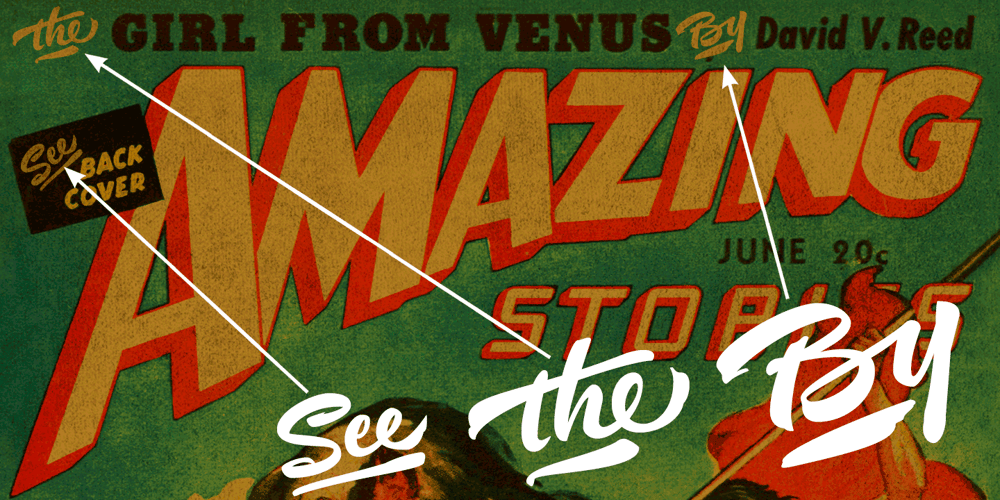
Nutcake CatchWords Font Family was designed by Carlos Fabián Camargo Guerrero and published by Andinistas. Nutcake CatchWords contains 1 styles and family package options. INSPIRED BY THE LOVERS OF LETTERS AND ANCIENT ANIMATED DRAWINGS: We present one of our most desired typographical tools of 2019: NUTCAKE CATCH-WORDS! Designed and produced by #carlosfabiancg and #a_freitez at different times and places in Venezuela and Colombia. Each word design was like “travel to the old school of hand lettering of 1930” due to the number of options and alternatives we discarded to solidify meticulous researches and Bezier drawings, based on analysis and synthesis of empty and full calligraphy, first done with a round brush and then perfected with pencil and paper. For this reason, each NUTCAKE CATCH-WORDS design contains a high dose of cursive expressiveness, apparently handwritten, and that is why our customers can take advantage of more than 160 words compiled in a single OTF file. NOTE: if you need any new word with the NUTCAKE CATCH-WORDS style, please write us and we will gladly design it to include it in your file. Below the list of 160 catch words: and, An, All, As, After, Ante, Avec, Break, Bright, Big, Back, Both, Best, Body, Butter, Breakfast, By, Bajo, Coffe, Café, Closet, Can, Cocktail, Cookies, Custom, Cabe, Con, Contra, Could, Crisp, Candy, City, Chocolate, Chocolat, Come, Del, Don’t, Deliver, Desde, Di, Durante, Enjoy, Eat, Example, El, En, Entre, Front, Fire, Free, Fashion, For, Fresh, Friday, Family, Going, Great, Go, Heres, Here, Hand, Hacia, Hasta, Have, I’m, It’s, Imagine, It, Join, Just, Jam, Kitchen, Kiss, Know, Keep, Like, Life, Lady, La, Las, Les, Los, Le, Love, Money, More, Master, My, Mediante, Now, now, New, new, next, nuevo, nueva, Off, out, ofertas, oferta, offer, offers, Please, Para, Per, Page, Quality, Queen, Question, Valley, Queso, Right, Road, Save, See, Show, Something, So, Según, Sin, So, Sobre, Sale, Shop, Style, Styles, Sweet, Special, To, the, The, Theres, There, To, This, Three, They, That, Tras, Think, Time, Take, Transfer, Until, Vacation, Value, Vote, What, Hats, With, Welcome, Which, You, Y, You’re, you, Zip, Zoom, Zombie.